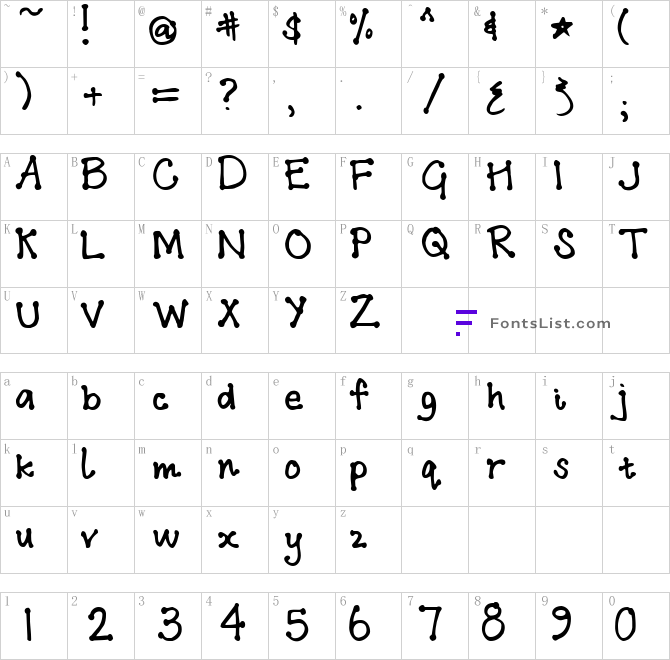
- Font Name:Addis Ababa
Addis-Ababa.ttf is a very beautiful artistic font, Addis-Ababa.ttf is widely used in the design and printing of various books and pictures,Addis-Ababa.ttf has a strong visual impact,Addis-Ababa.ttf is a commonly used font in newspapers, magazines and books, and is used in posters, e-commerce Poster design, store design, logo design, font design and other fields.Addis-Ababa.